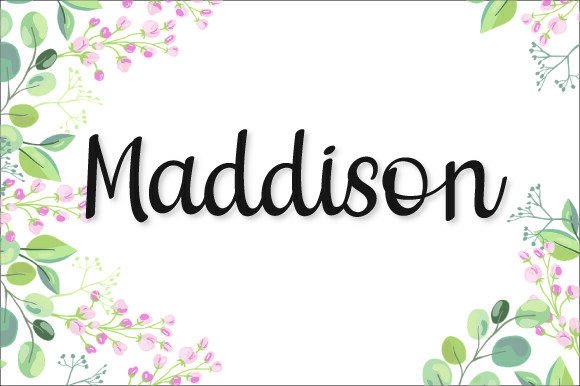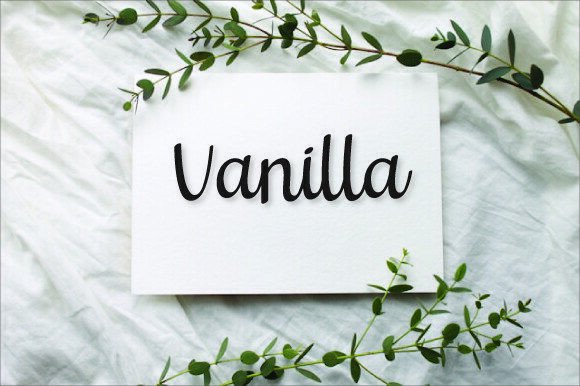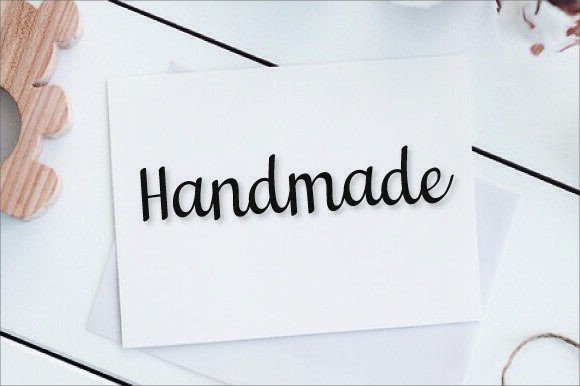
Introduction to Lettered Font
Lettered is a delicate handwritten font carefully crafted for a cool and unique design.
This font can be used to write letters, invitations, food products, titles, and more .
Lettered Font offers exceptional quality and versatility, making it a valuable addition to your design toolkit. Whether you’re creating for personal projects or commercial use, Lettered Font delivers professional results.